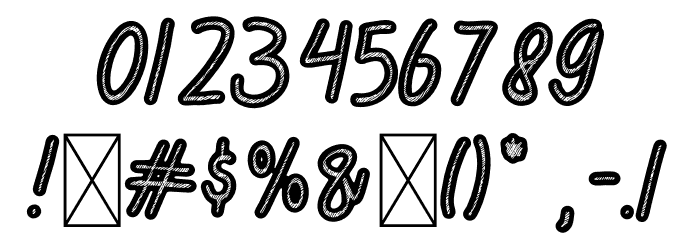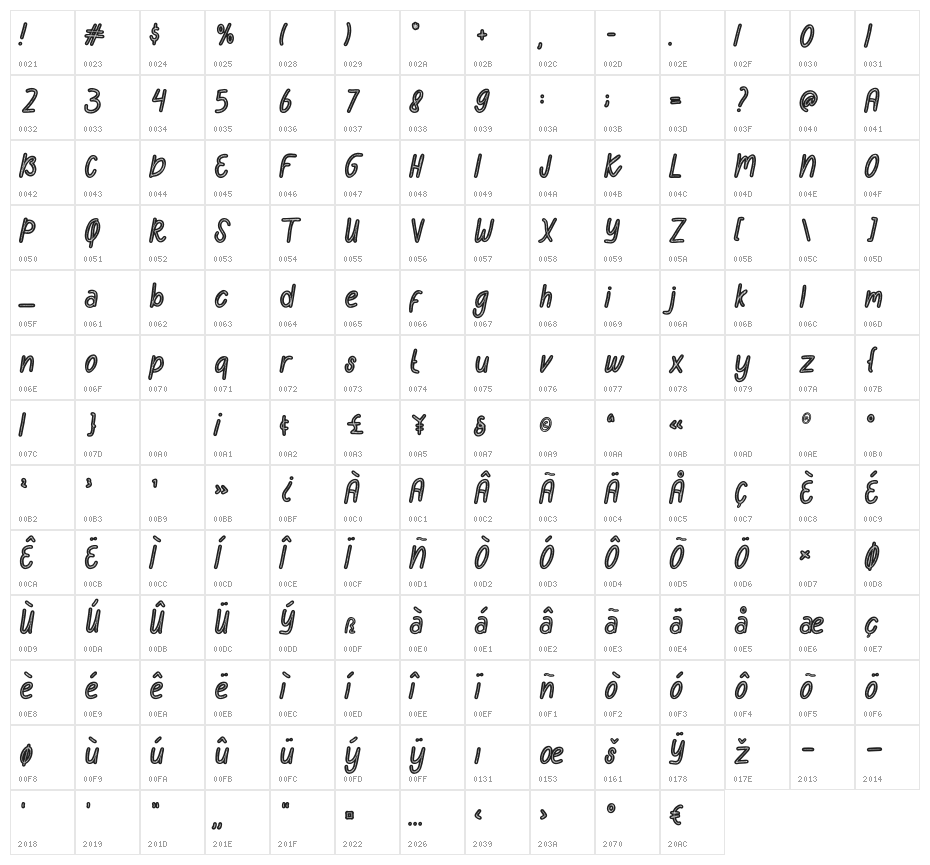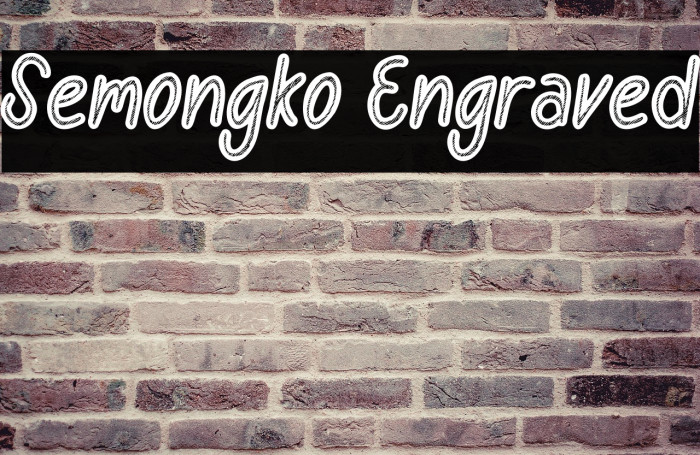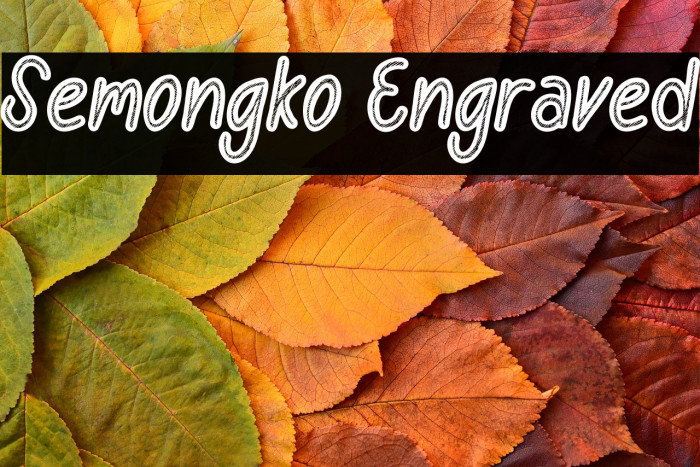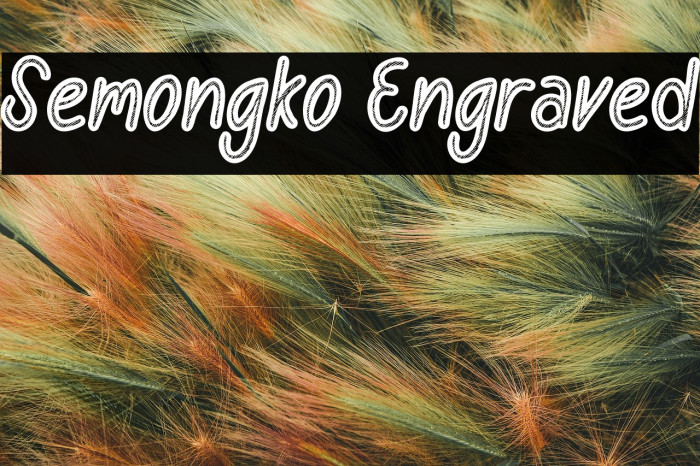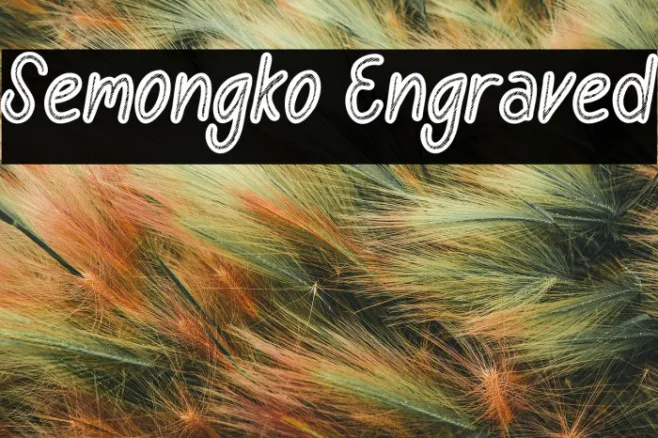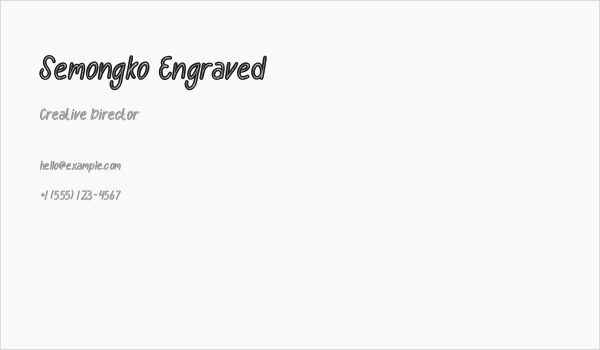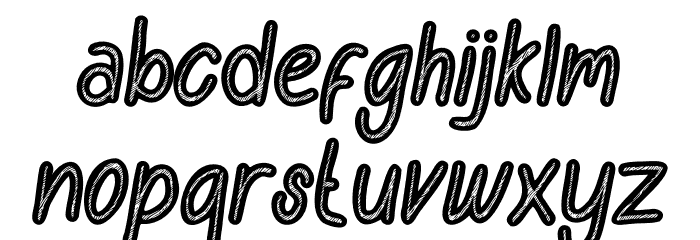
Semongko Engraved Font
Semongko Engraved Description
This font features a playful, hand-drawn style with a unique engraved texture that adds depth and character. The letters are rounded and slightly irregular, giving them a casual and friendly appearance. The uppercase and lowercase letters maintain a consistent style, with smooth curves and a slight slant that suggests movement. The numerals and special characters follow the same design principles, ensuring a cohesive look across all text. The engraved effect is achieved through a series of parallel lines within each character, creating a textured, three-dimensional appearance. This font is ideal for projects that require a touch of whimsy and creativity.